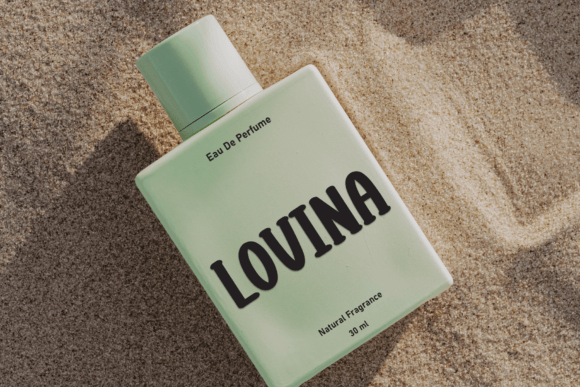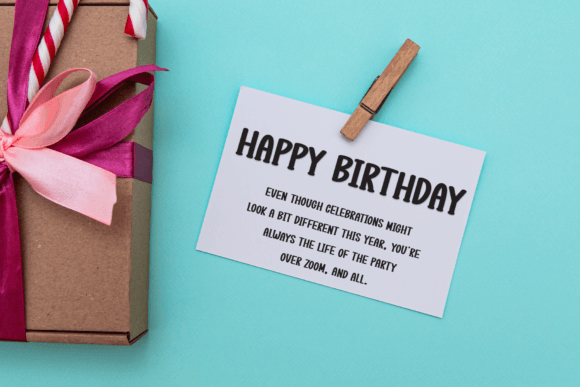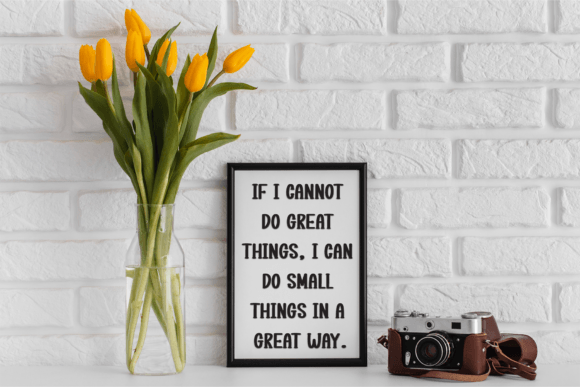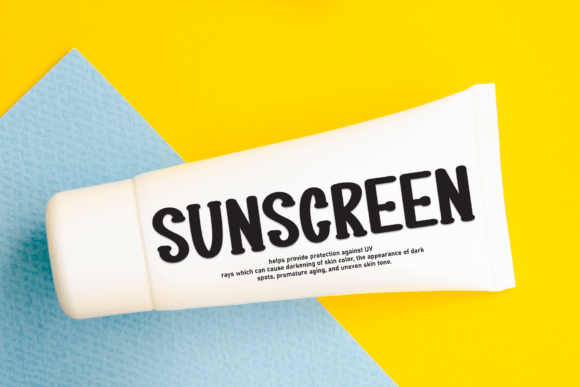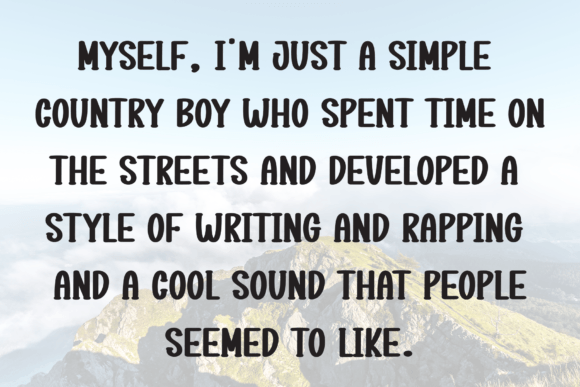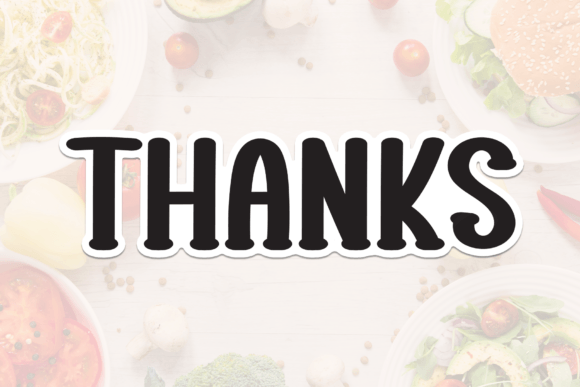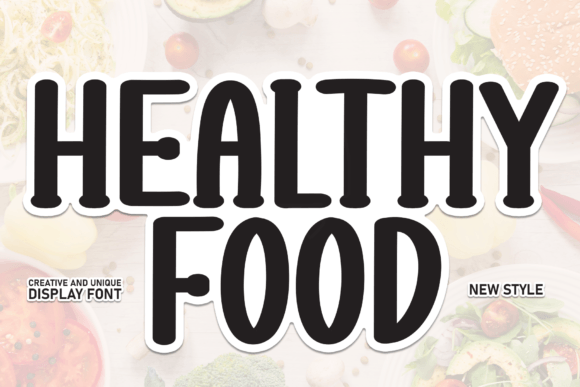
Introducing Healthy Food Font: The Sweet and Friendly Display Font for Your Designs
Are you a designer or crafter looking for a font that can add a touch of warmth and friendliness to your projects? Look no further than Healthy Food Font, a sweet and friendly display font that’s perfect for a wide range of designs. With its natural and unique style, Healthy Food Font is incredibly versatile and can be used in a variety of creative ways.
What Makes Healthy Food Font So Special?
Healthy Food Font is a display font that stands out from the crowd with its distinctive and charming style. Its natural and effortless look makes it perfect for designs that require a friendly and approachable feel. Whether you’re working on a project for a food blog, a recipe book, or a health and wellness brand, Healthy Food Font is an excellent choice.
Key Features of Healthy Food Font
• Unique and Natural Style: Healthy Food Font has a one-of-a-kind style that’s reminiscent of handwritten letters and natural textures.
• Versatile and Adaptable: This font can be used in a wide range of designs, from food and health-related projects to crafts and DIY tutorials.
• Sweet and Friendly: Healthy Food Font has a warm and inviting feel that’s perfect for designs that require a personal touch.
• Easy to Read: Despite its unique style, Healthy Food Font is easy to read and understand, making it perfect for headlines, titles, and short paragraphs.
Use Cases for Healthy Food Font
Healthy Food Font is an incredibly versatile font that can be used in a variety of creative ways. Here are some use cases to get you started:
• Food Blogs and Recipes: Use Healthy Food Font to add a personal touch to your food blog or recipe book. It’s perfect for headlines, titles, and short paragraphs.
• Health and Wellness Brands: Healthy Food Font is an excellent choice for health and wellness brands that want to convey a friendly and approachable feel.
• Crafts and DIY Tutorials: This font is perfect for crafts and DIY tutorials that require a personal and creative touch.
• Social Media Graphics: Use Healthy Food Font to create engaging social media graphics that stand out from the crowd.
Tips for Using Healthy Food Font
Here are some tips for using Healthy Food Font in your designs:
• Pair it with Other Fonts: Healthy Food Font pairs well with other fonts, especially those with a clean and modern style.
• Use it for Headlines and Titles: This font is perfect for headlines and titles, but can also be used for short paragraphs and descriptions.
• Experiment with Colors and Textures: Healthy Food Font looks great with a variety of colors and textures, so don’t be afraid to experiment and find the perfect combination for your design.